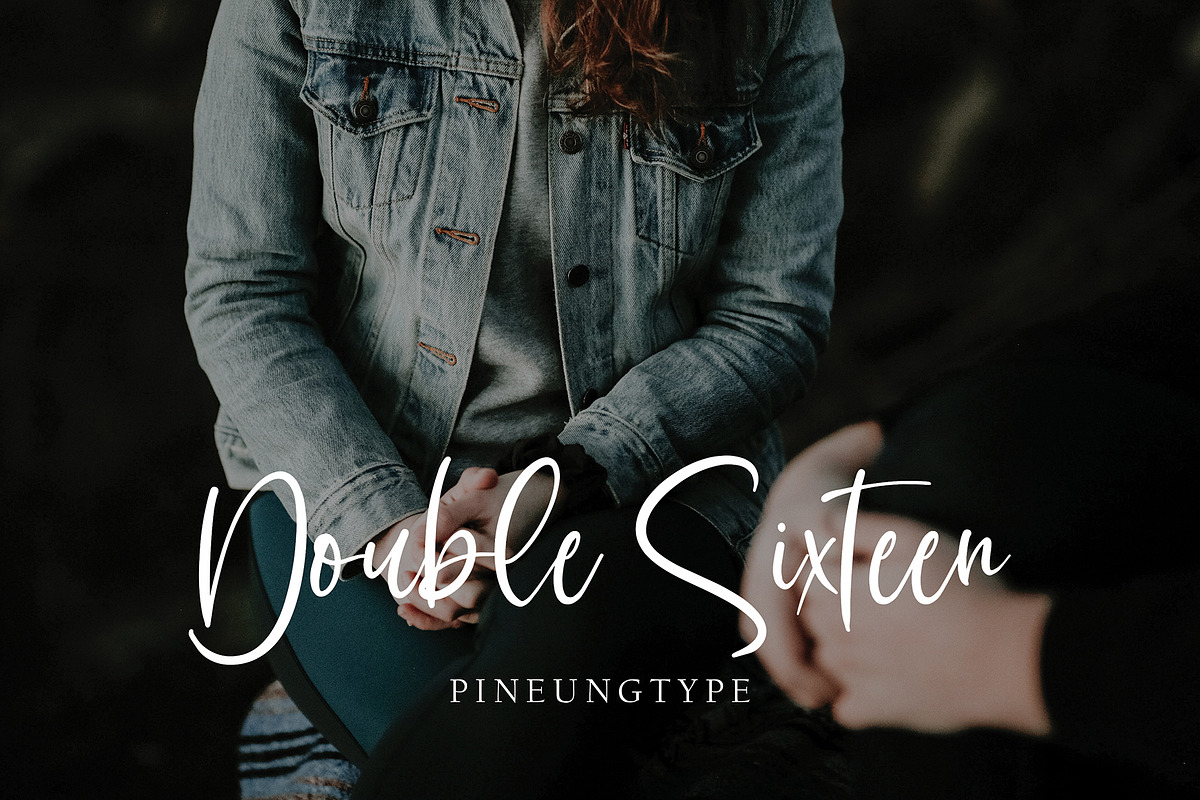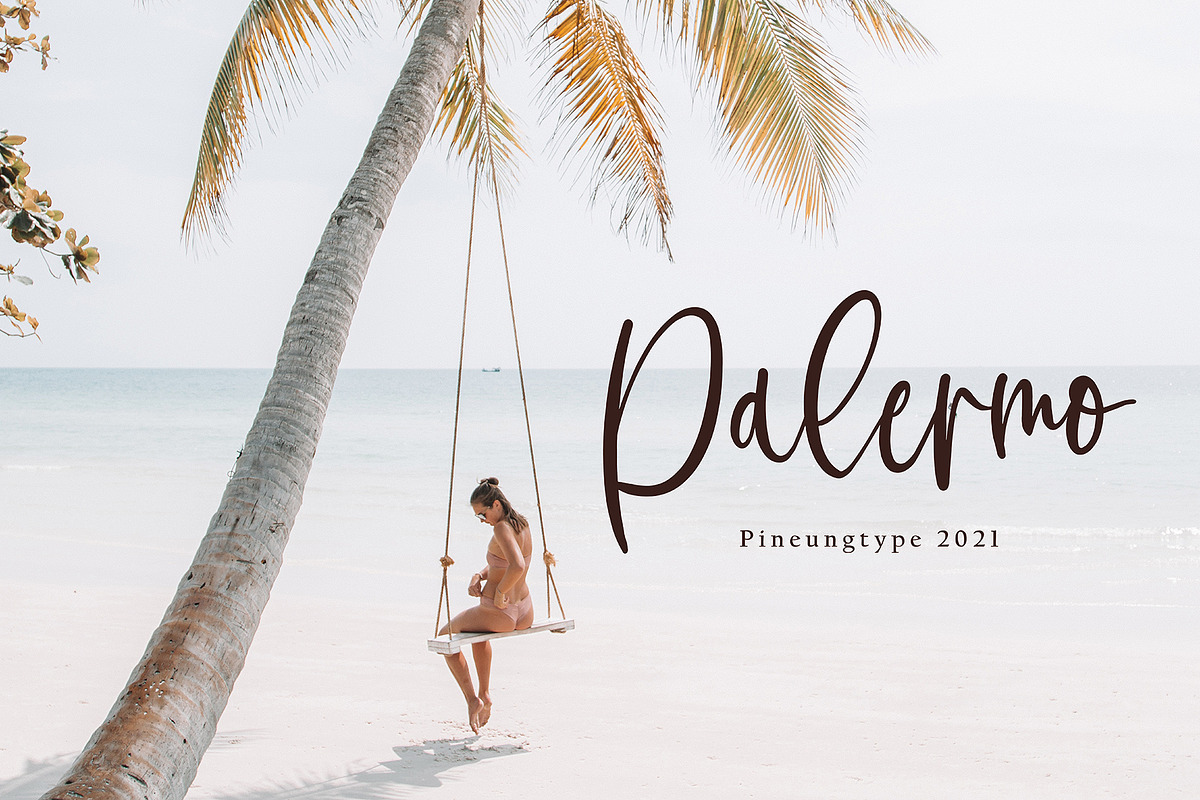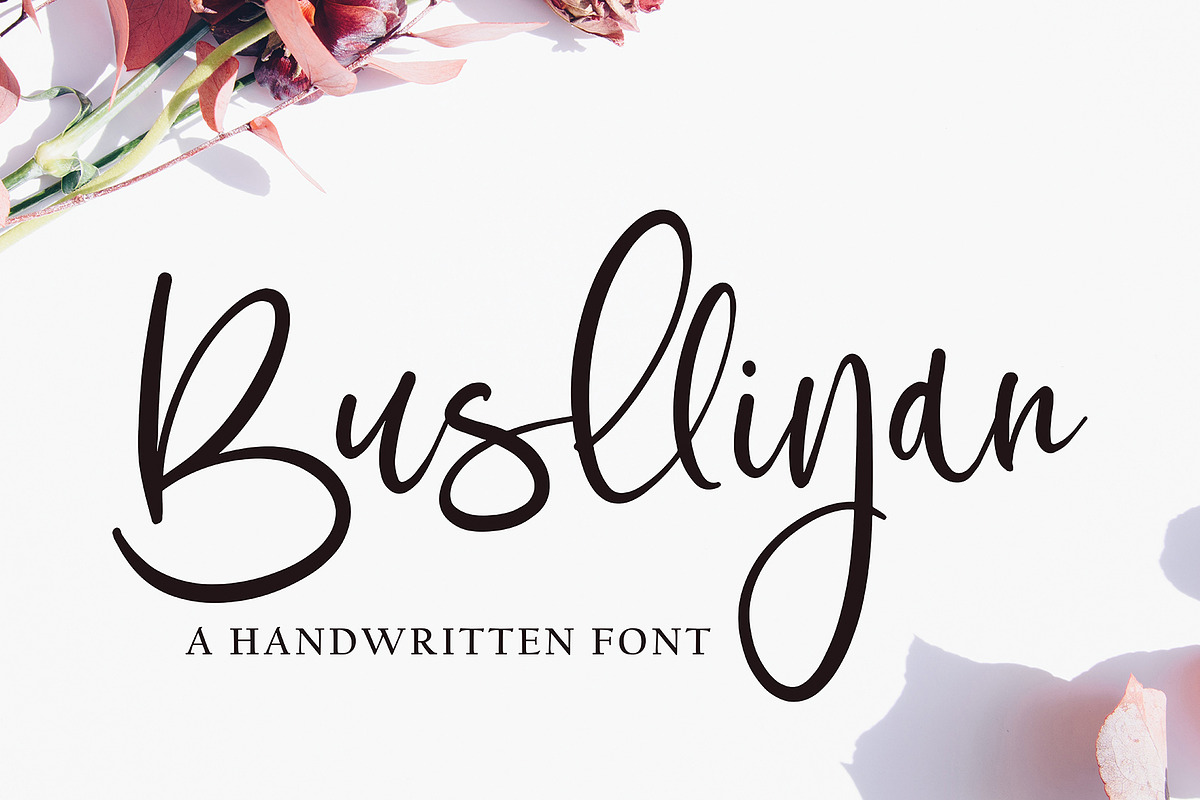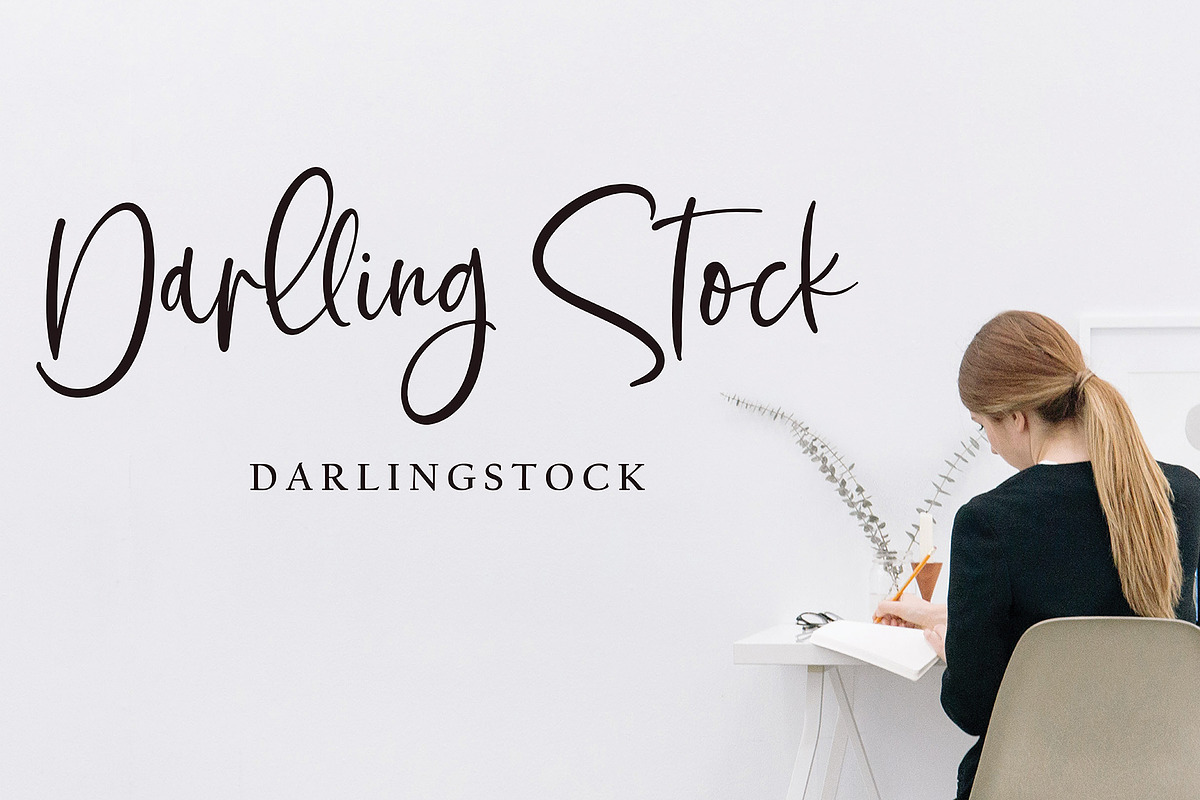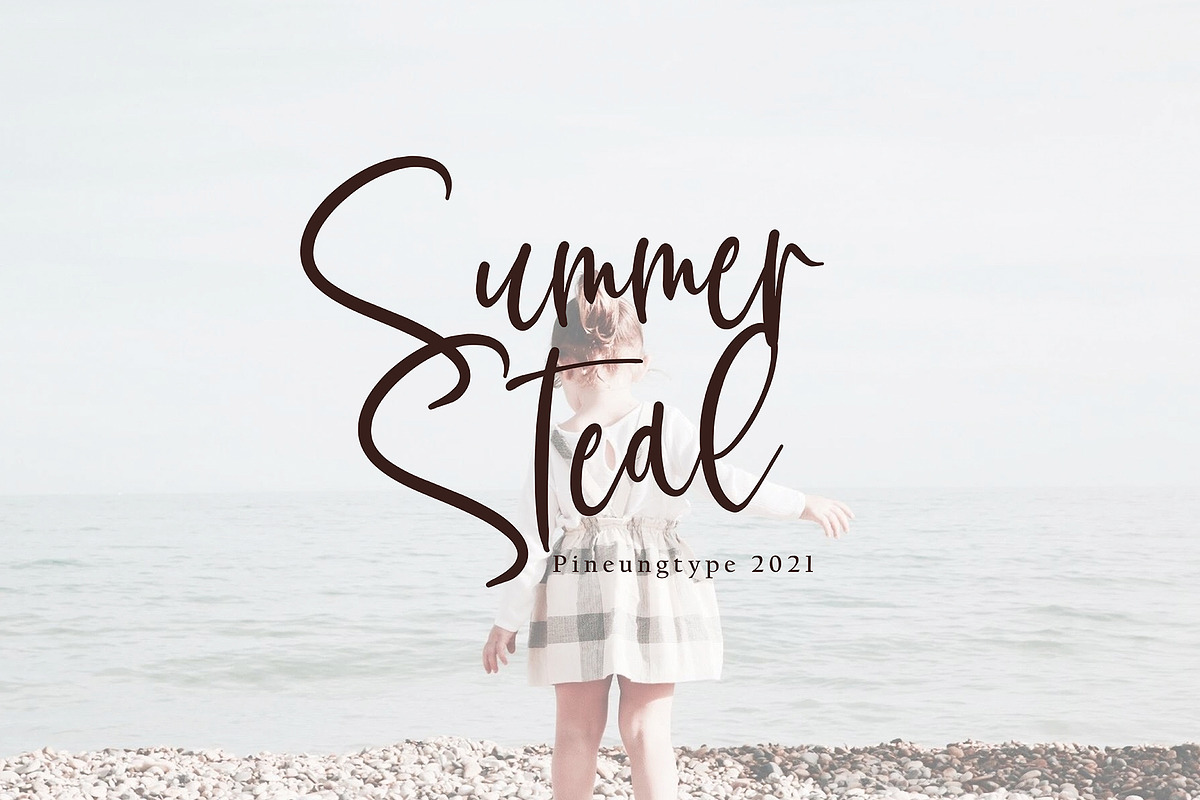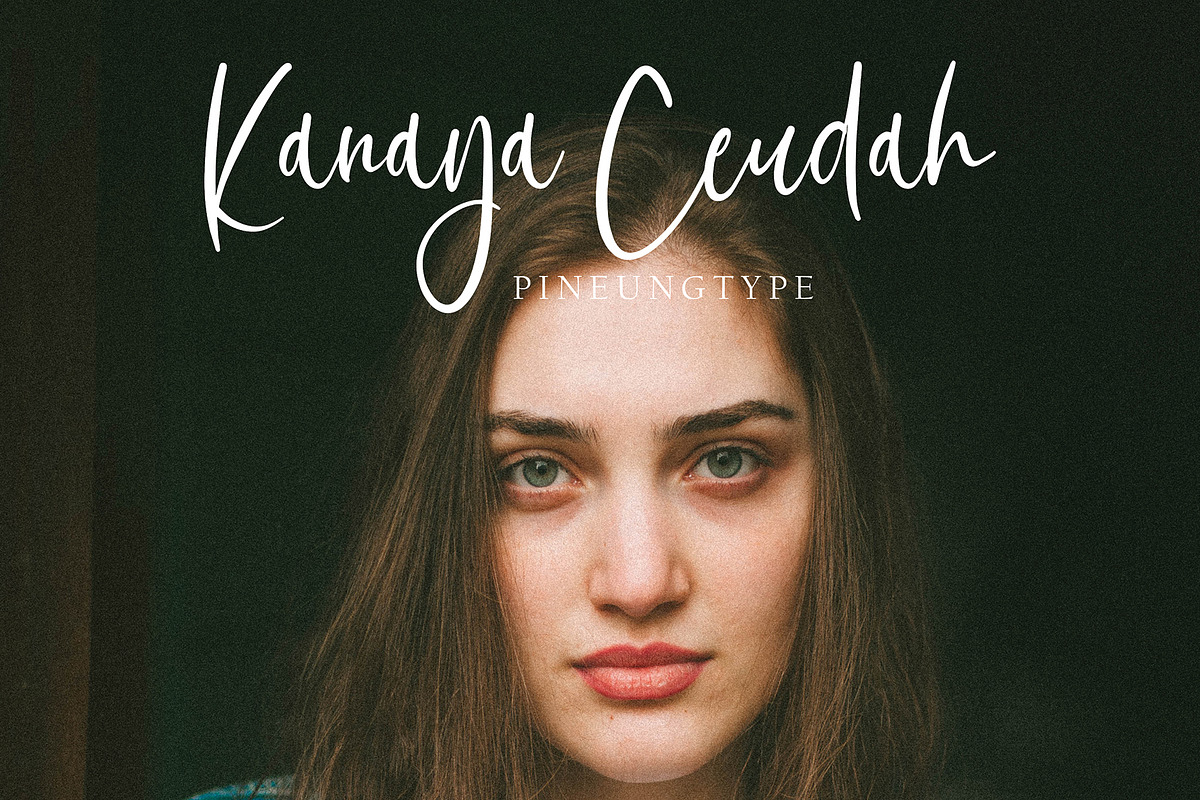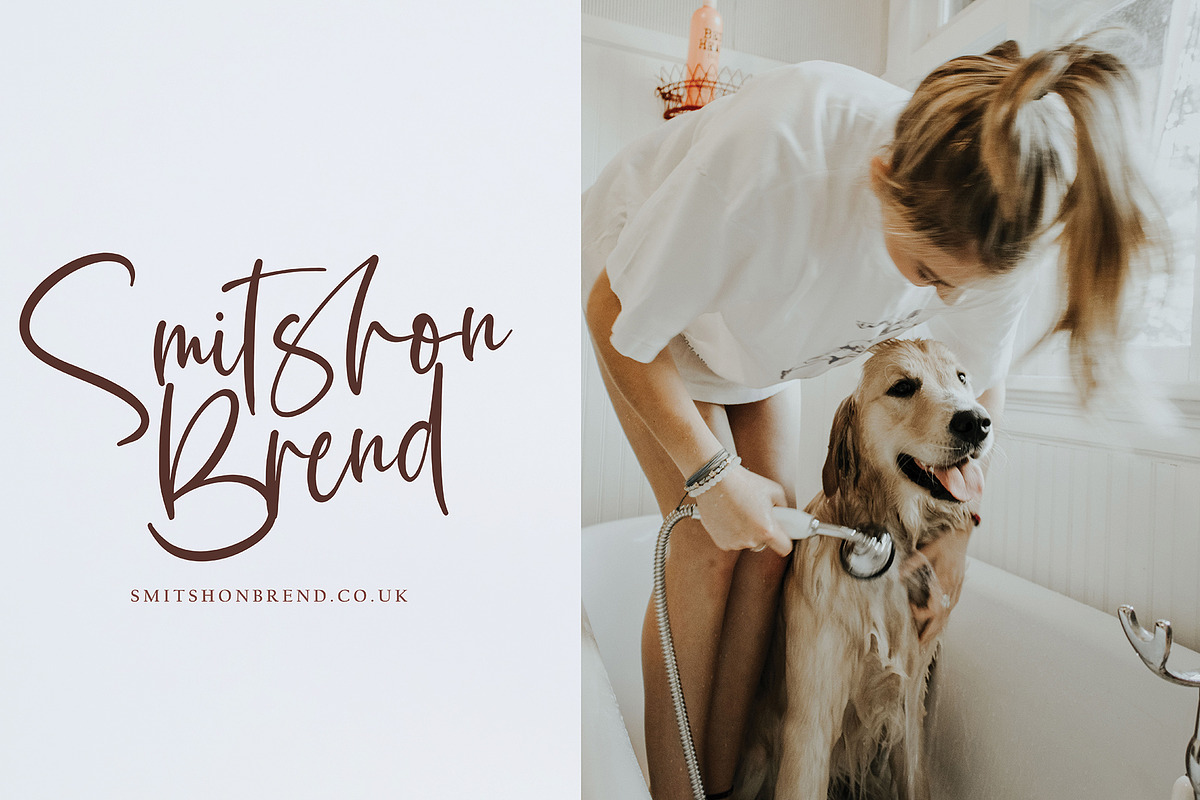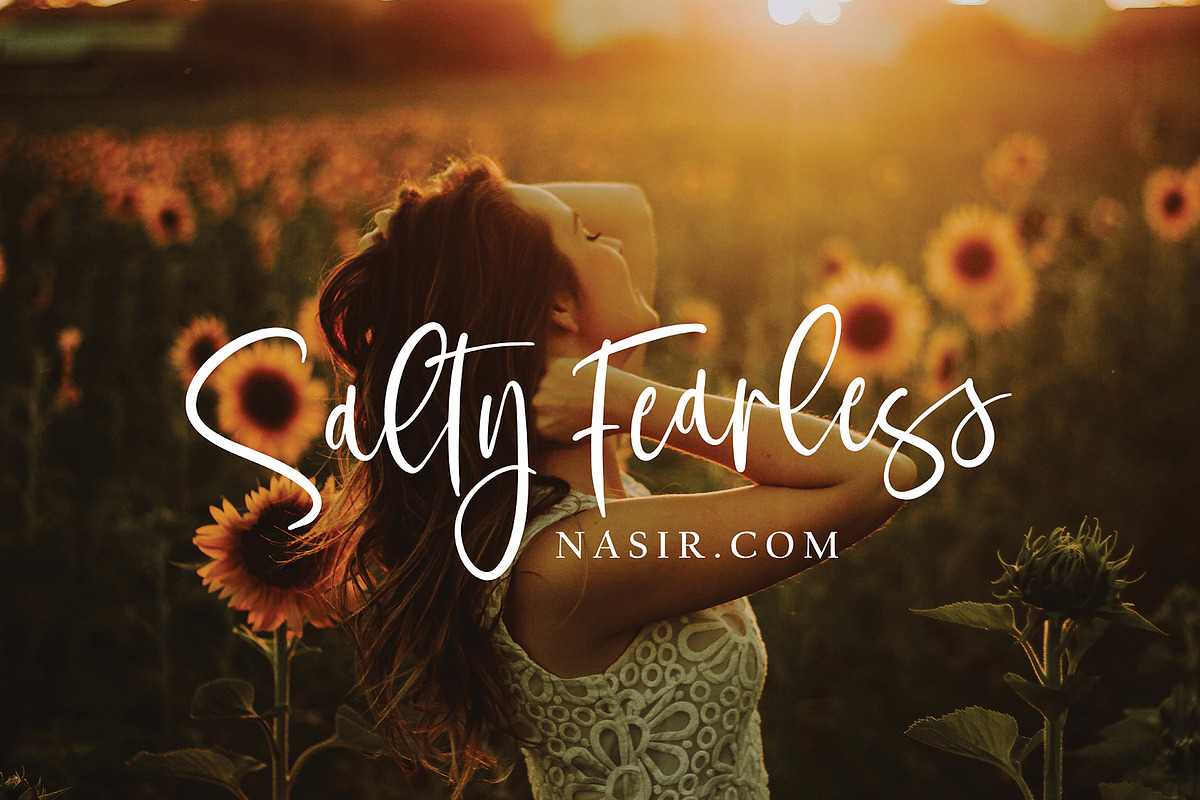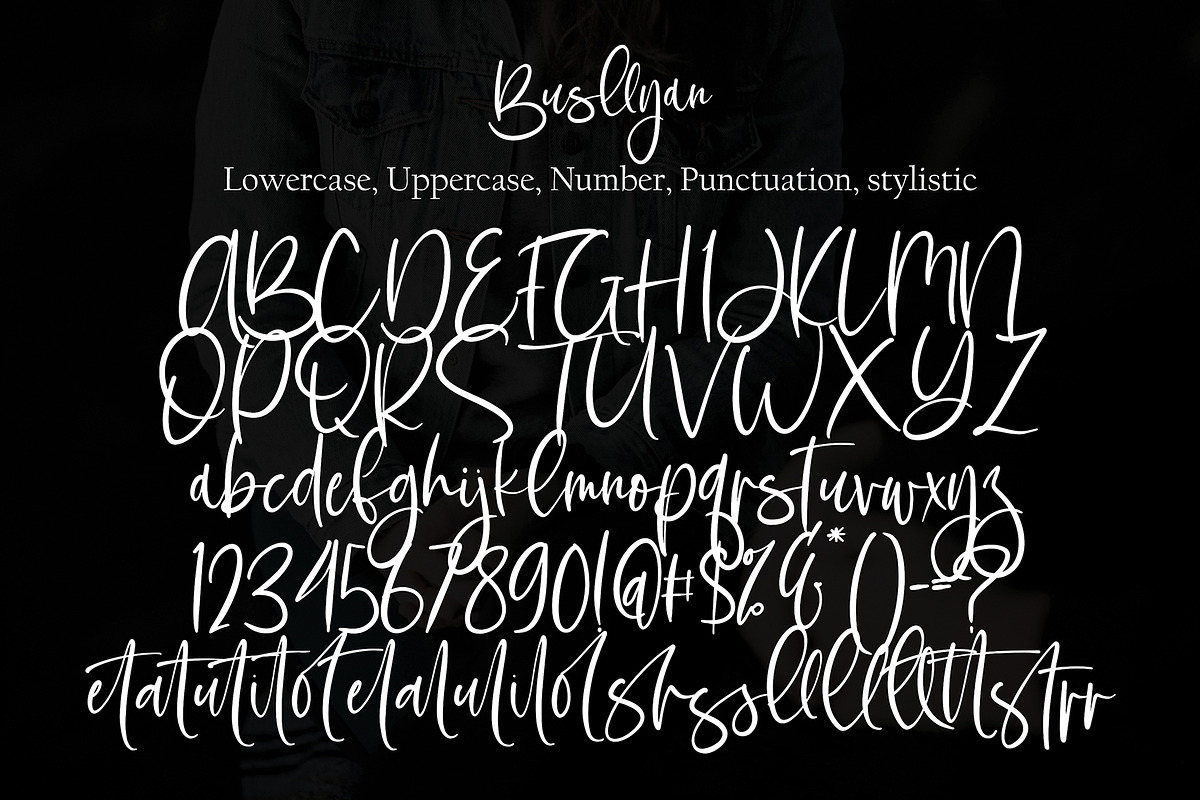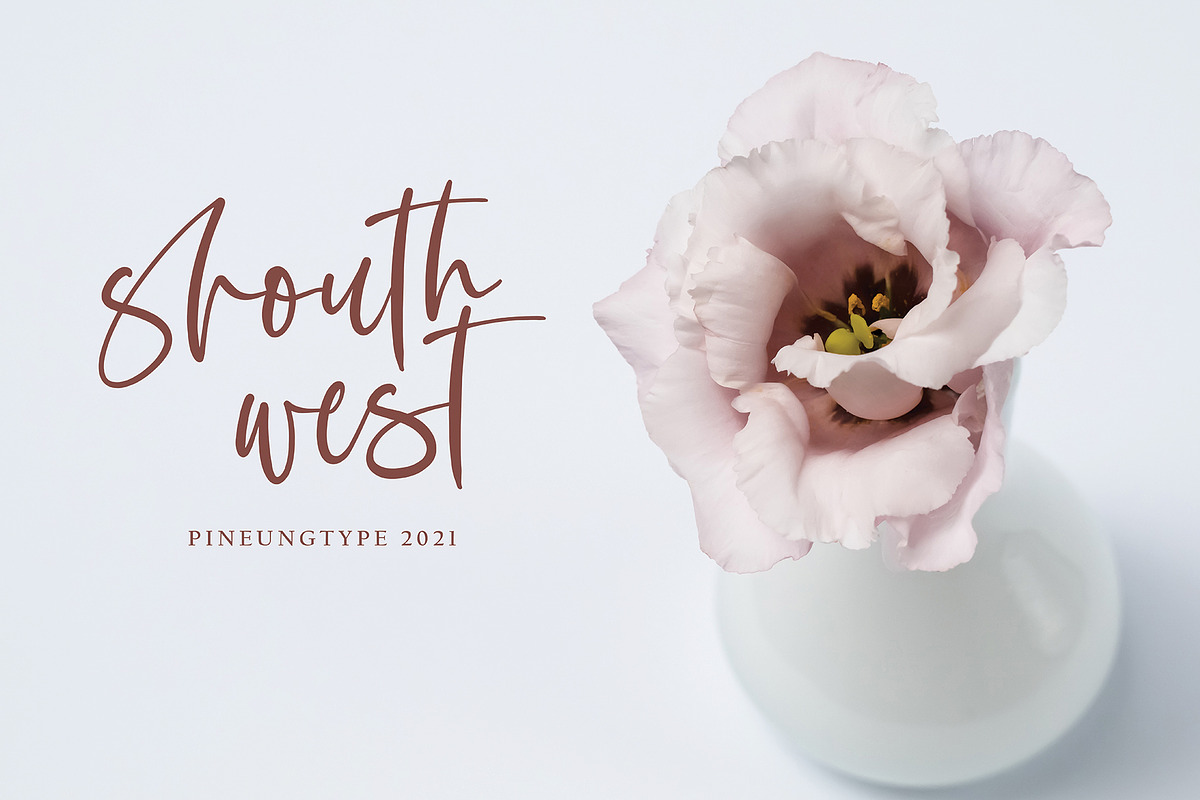
Buslliyan
Buslliyan font with new style, this font will perfect for many different project ex: quotes, logo, blog header, poster, banding, fashion, apparel, letter, invitation, stationery, etc...